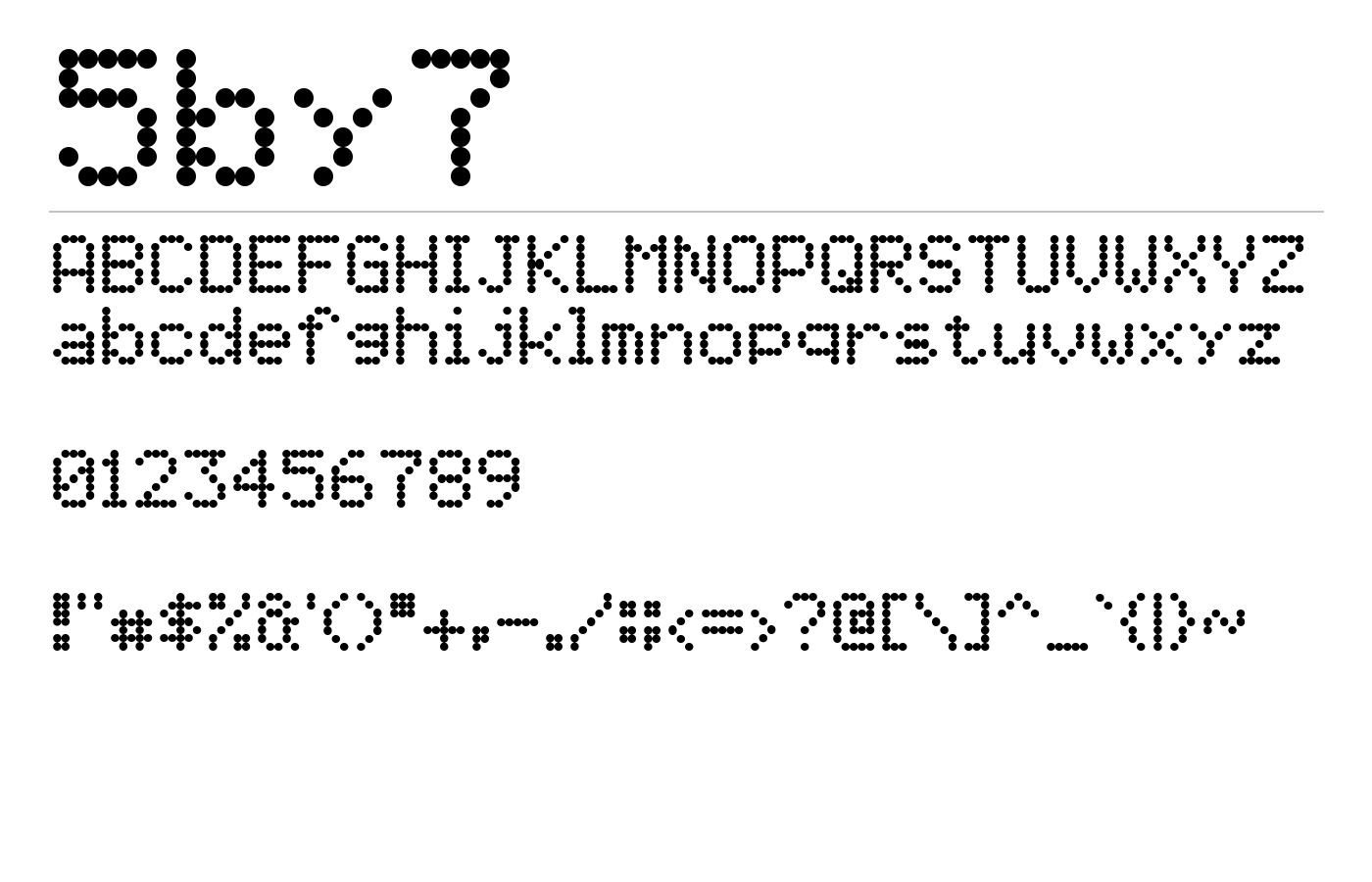
5by7 is a unique monospaced dot matrix font that brings a retro, digital feel with its grid-based circular dots forming each character. This playful and tech-inspired typeface works well for pixel art, digital displays, or creative projects aiming for a vintage computer or arcade style. Its clear structure and even spacing make it ideal for headlines, logos, and any design needing an eye-catching, nostalgic look.
5by7 Font